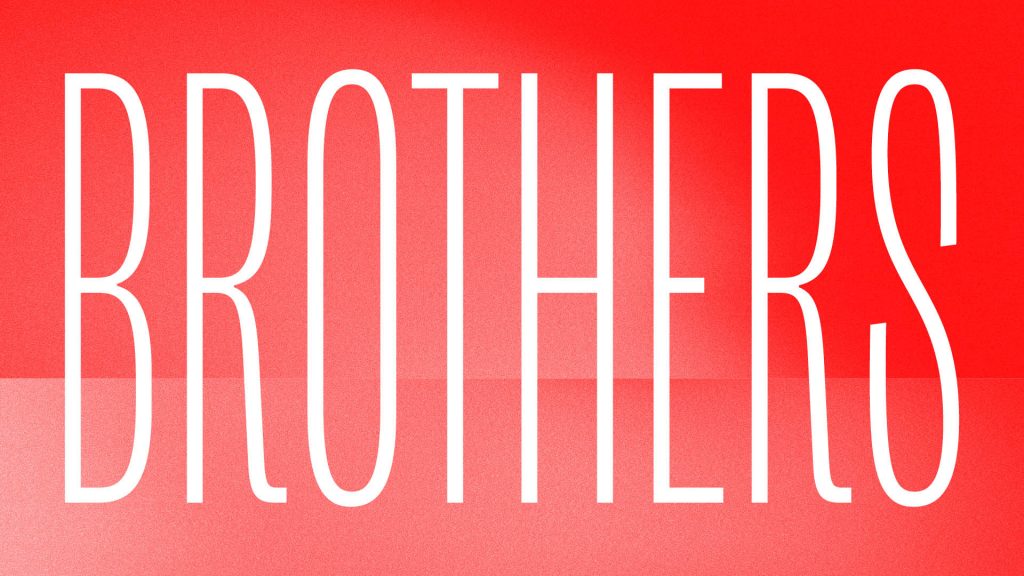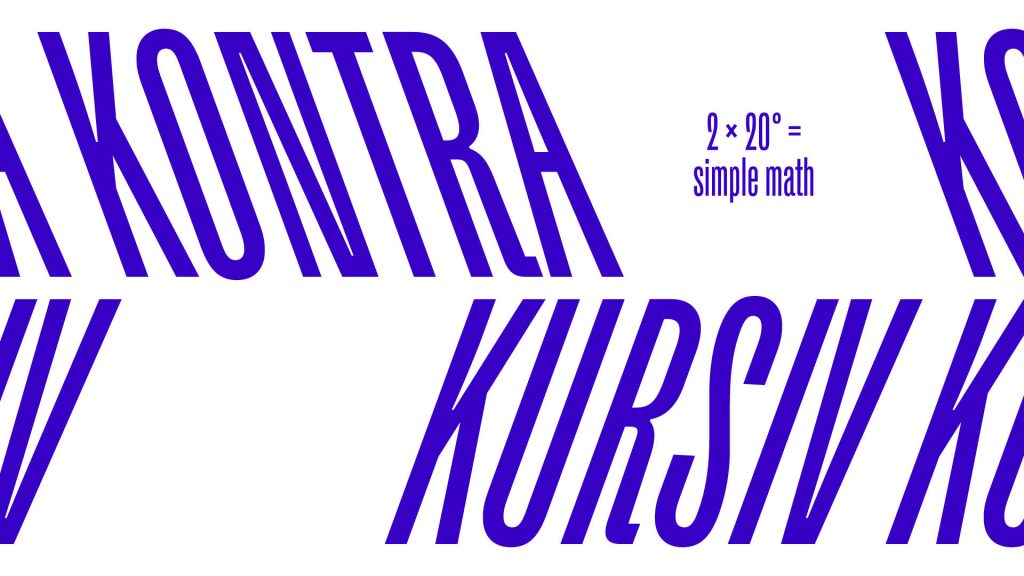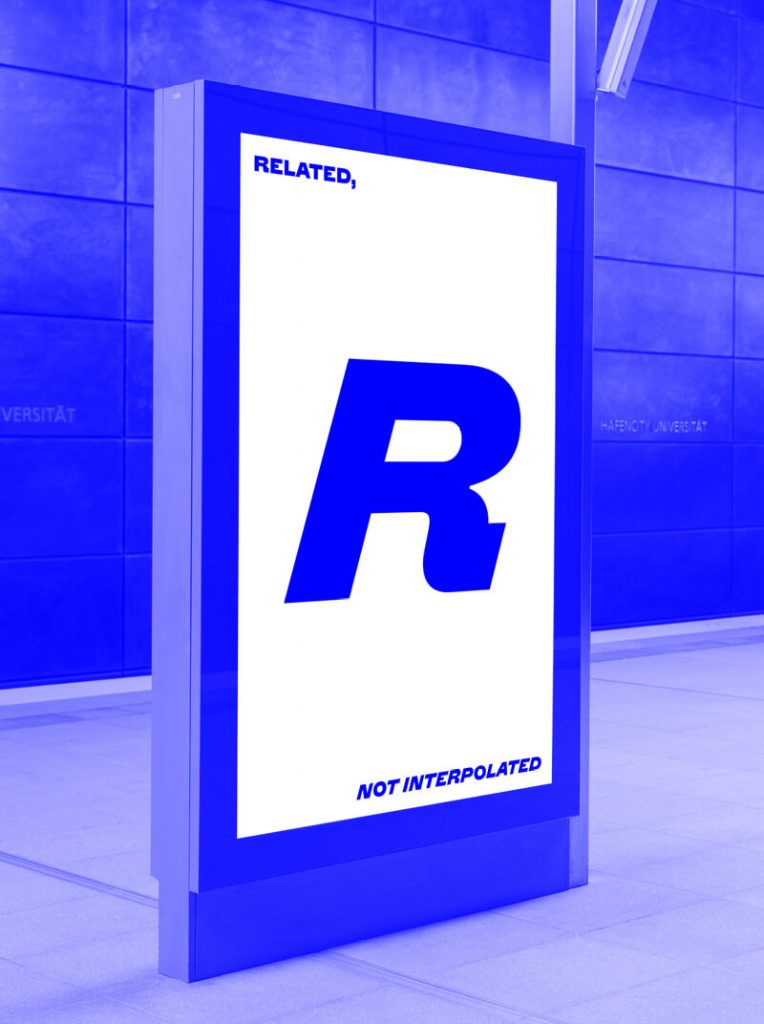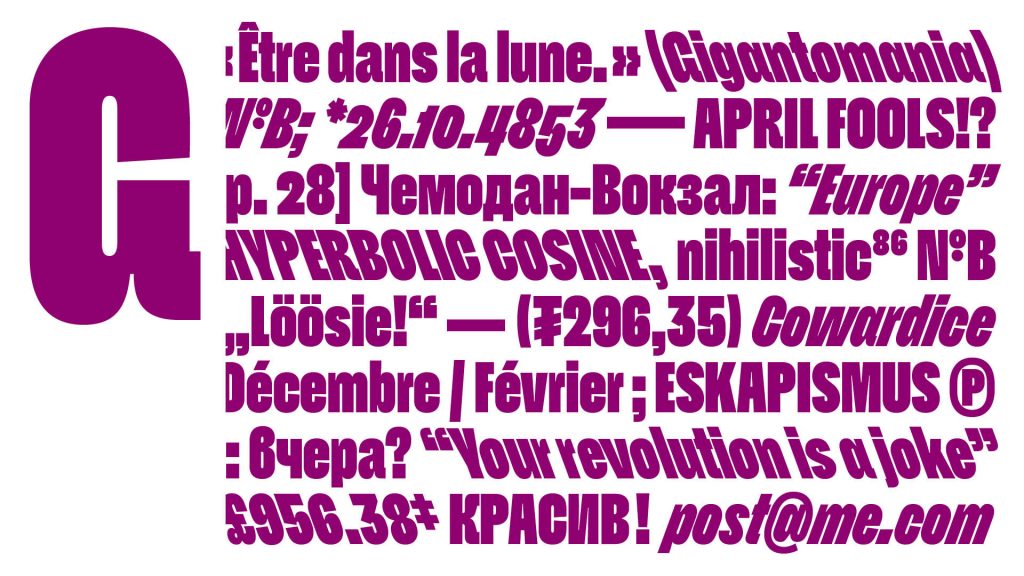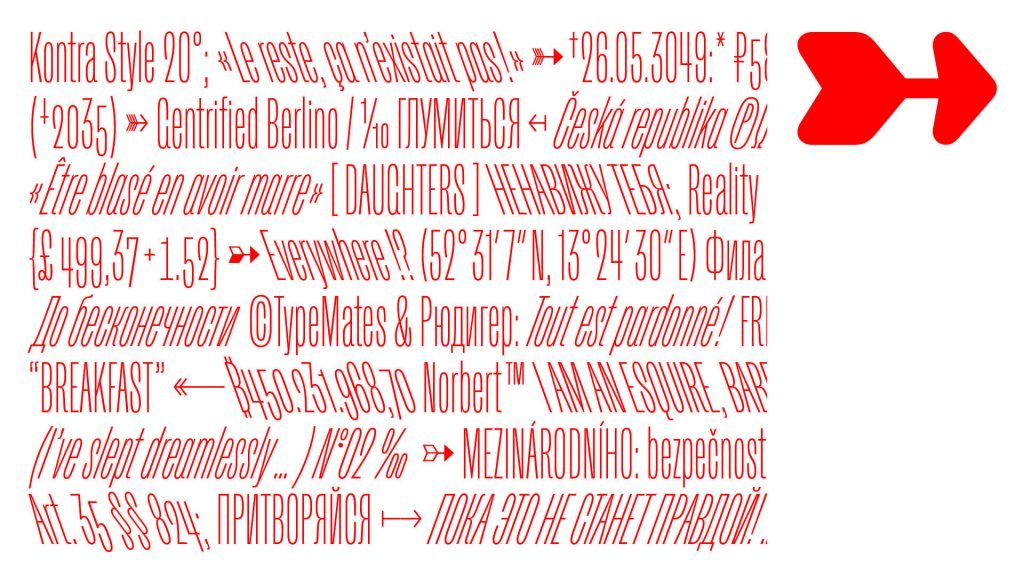
Name: Norbert
Designer: Philipp Neumeyer
Foundry: TypeMates
Release Date: January 2021
Back story: In 2016, Phillipp Neumeyer was smitten by some gorgeous metal lettering he spied on the signage wrapping St. Petersburg’s 1907 Au Pont Rouge department store. “The letters were rather squarish, which I didn’t care for at all, but the R and G had these little tails at the end,” he says. “I have never seen a G like that before. I was working on a single style, a rather heavy grotesque with a similarly tailed R, and I decided to complement that heavy style with a lighter one. The lighter style got this fabulously tailed G.”
Neumeyer also liked the idea of keeping Norbert’s styles a bit different from one another: connected but not too similar, like old metal typefaces that often vary vastly between weights or sizes. Neumeyer drew Norbert’s letterforms for each weight individually instead of extrapolating them up or down from the usual starting point of regular weight characters, lending them a distinct family resemblance that manages to be playfully varied as well.
Why’s it called Norbert? The name was chosen totally at random.
What are its distinguishing characteristics? Intentionally, Norbert has no regular width, variable font, or interpolated weights. Its three weights come in two widths: condensed (Schmal) and extended (Breit), complemented by Kursiv and Kontra, two backslanted styles. This elimination of the middle ground forces designers to consider unorthodox type choices right off the bat, and adds an element of the unexpected to everyday design solutions. The typeface comes with extensive language support and, thanks to its Russian heritage, its Cyrillic version has been proofed, scrutinized, and tested by native experts.
What should I use it for? Norbert is far more spirited than a typical workhorse Grotesque, and should be treated as such. Neumeyer says it best: “I would like to see it on posters, covers, banners, as movie titles, in TV shows, headlines…Everything fun, basically.”
What other typefaces do you like to pair it with? Although Norbert has a great deal of personality all its own, it still behaves well in groups and looks great with fancy high-contrast serif typefaces such as Abril or the more subtle reverse-contrast Nordvest.
Bonus detail: Neumeyer hopes you care about Norbert’s extensive range of arrows, because he does.